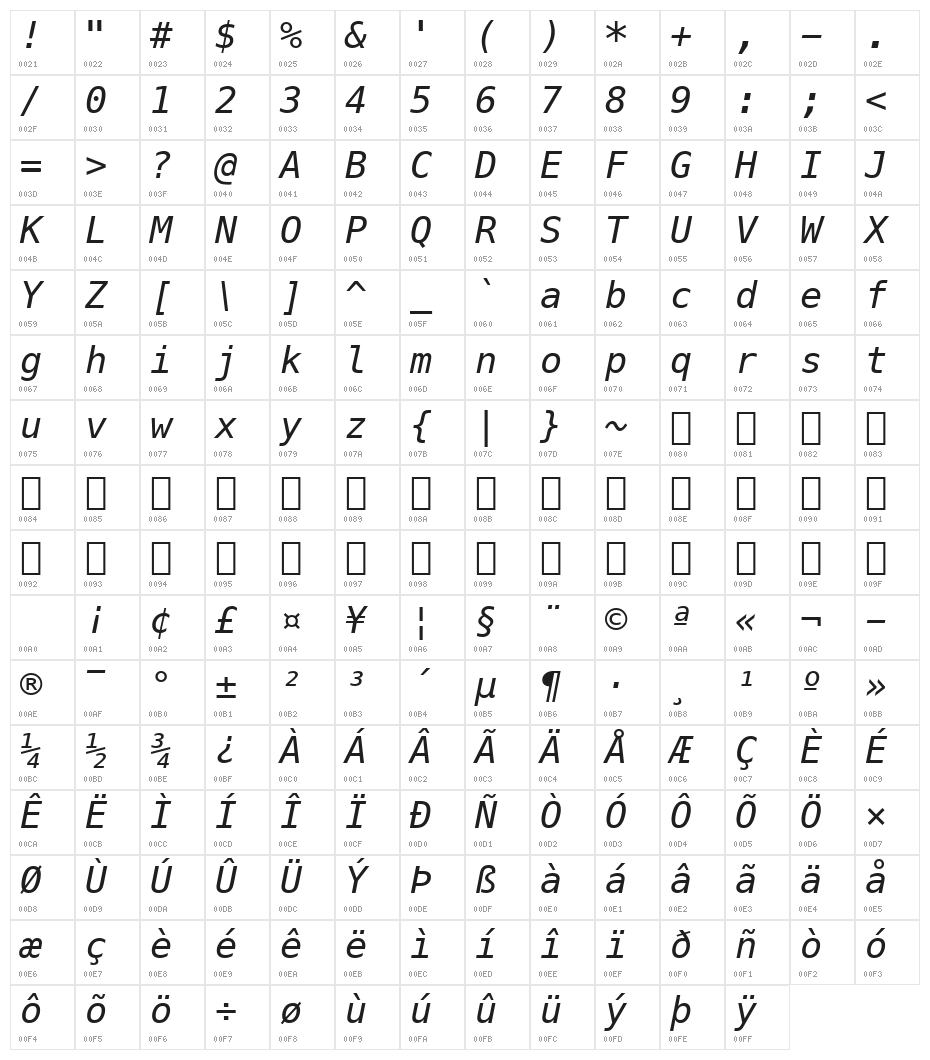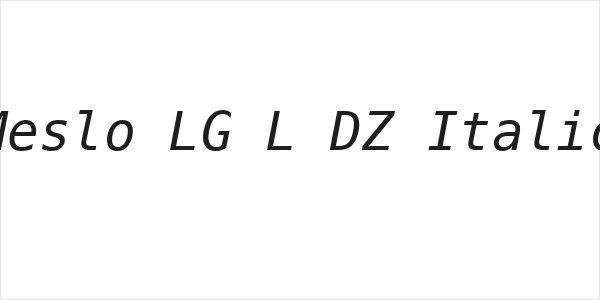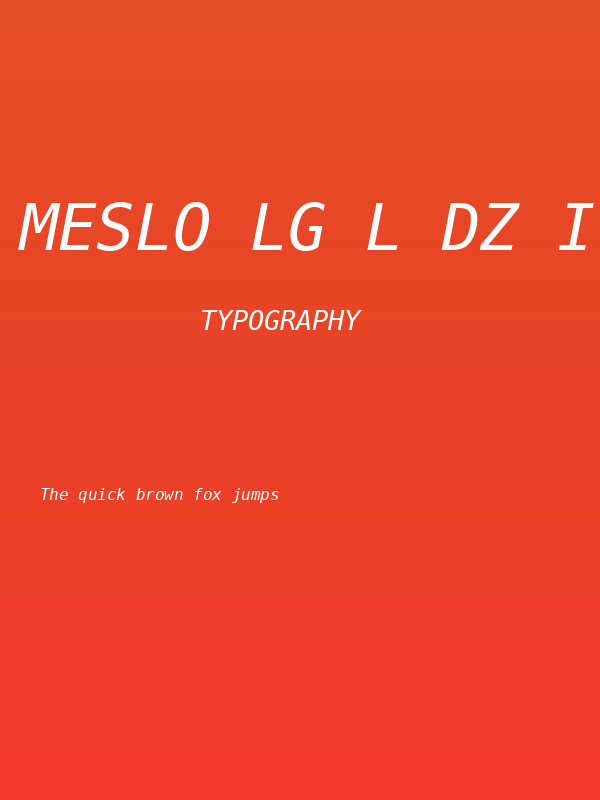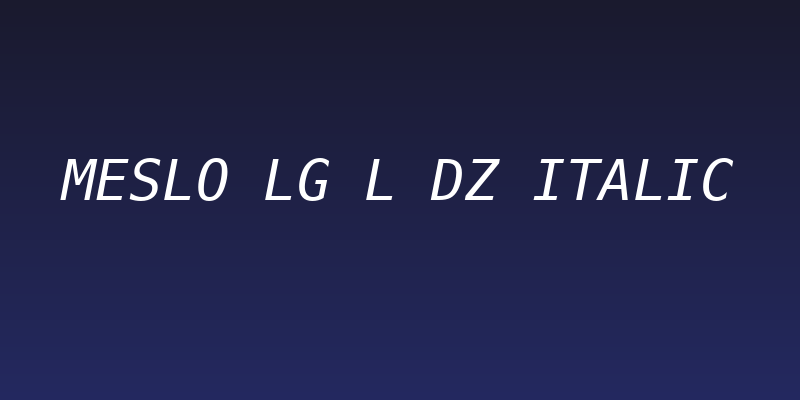
Meslo LG L DZ Italic Font
Meslo LG L DZ Italic Description
This font features a clean and modern design with a slight italic slant, giving it a dynamic and forward-moving appearance. The characters are monospaced, ensuring uniformity in width, which is ideal for coding and technical documents. The strokes are consistent in thickness, providing a medium contrast that enhances readability while maintaining a sleek aesthetic. The overall style is contemporary, with a focus on clarity and precision, making it suitable for digital interfaces and print media alike. The spacing between characters is normal, allowing for easy legibility without feeling cramped or overly spaced.
| Use Case | Headlines, Body text, Logos, Coding |
| Proposed Projects | Ideal for coding environments, technical documentation, digital interfaces, and modern print layouts. |